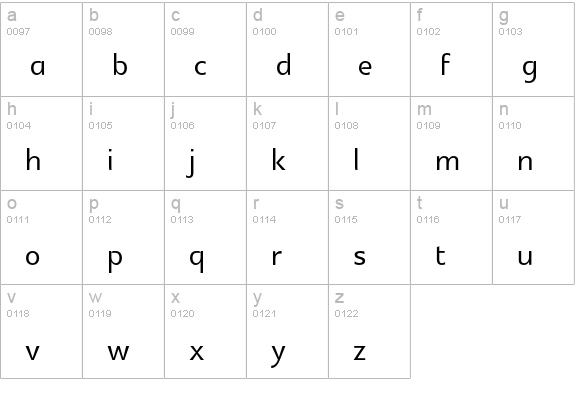
Glametrix Font Details
Glametrix font is a stunning and elegant typeface that exudes a sense of sophistication and glamour. With its sleek and stylish design, this font is perfect for adding a touch of luxury to any project. The tall and slender letterforms of Glametrix font are meticulously crafted, creating a visually captivating look that is sure to catch the eye. What makes Glametrix font even more appealing is the fact that it is completely free. Yes, you read that right! This exquisite font is freely available to download at FontsMarket.com. Whether you're a designer working on a high-end fashion magazine, a wedding invitation, or a branding project for a luxurious brand, Glametrix font is the perfect choice to elevate your designs to the next level. The versatility of Glametrix font is unparalleled. It can be used for headlines, titles, logos, and even body text, ensuring that your message is communicated with utmost elegance and refinement. The clean and crisp lines of this font make it easy to read and legible at any size, while still maintaining its stunning visual impact. Glametrix font is a true testament to the power of typography to evoke emotions and create a lasting impression. Its timeless beauty and sophistication make it a must-have for any designer or creative professional. So why wait? Head over to FontsMarket.com and download Glametrix font today, and let your creativity shine with this extraordinary typeface.